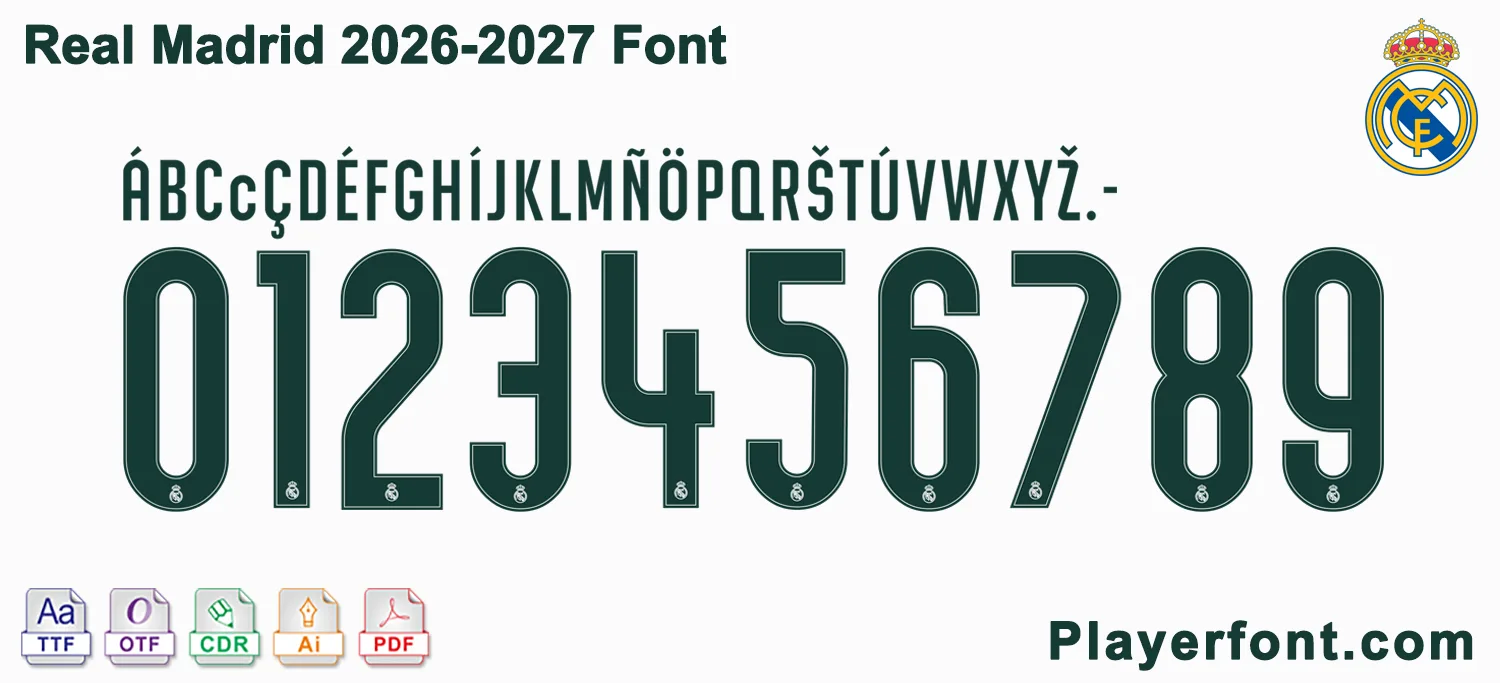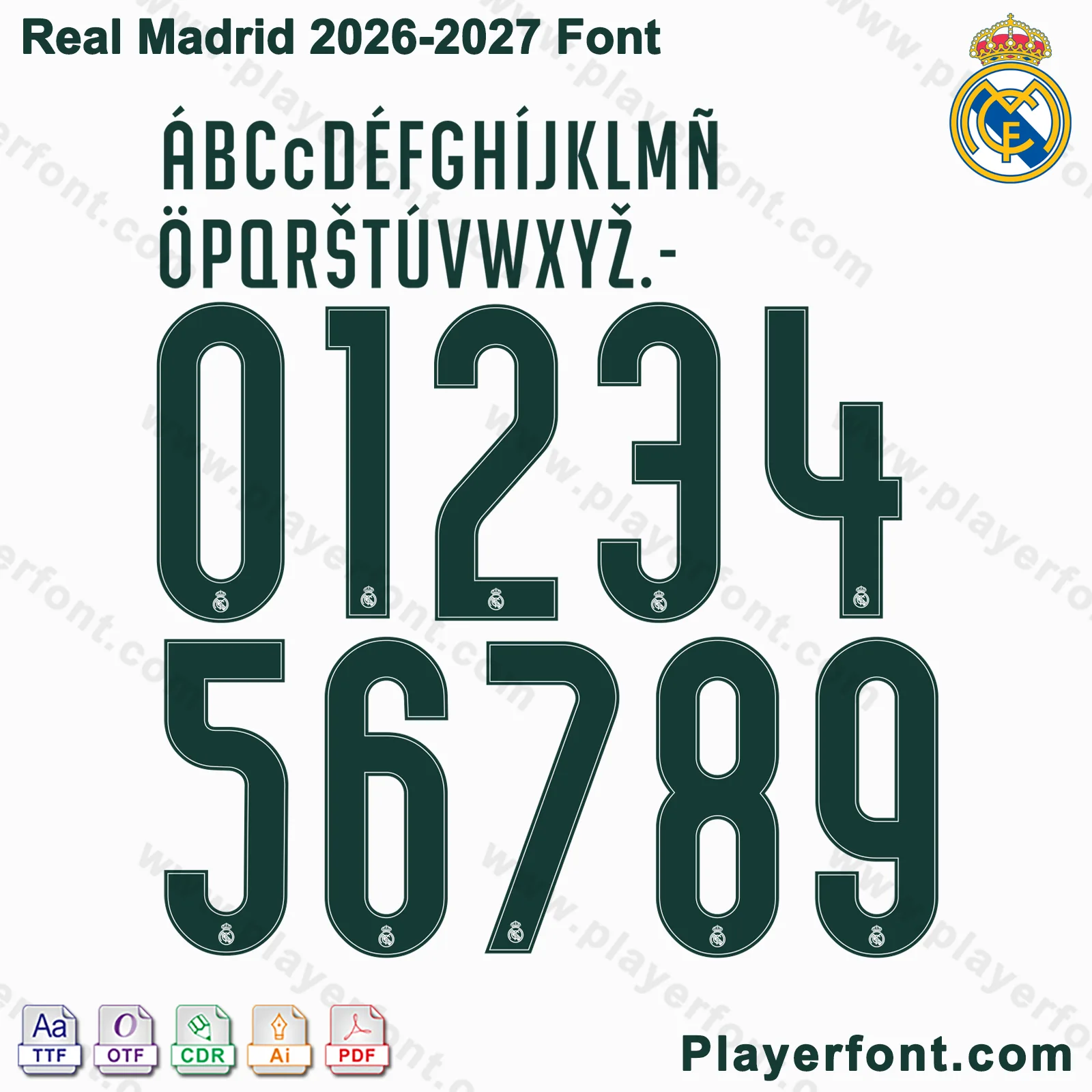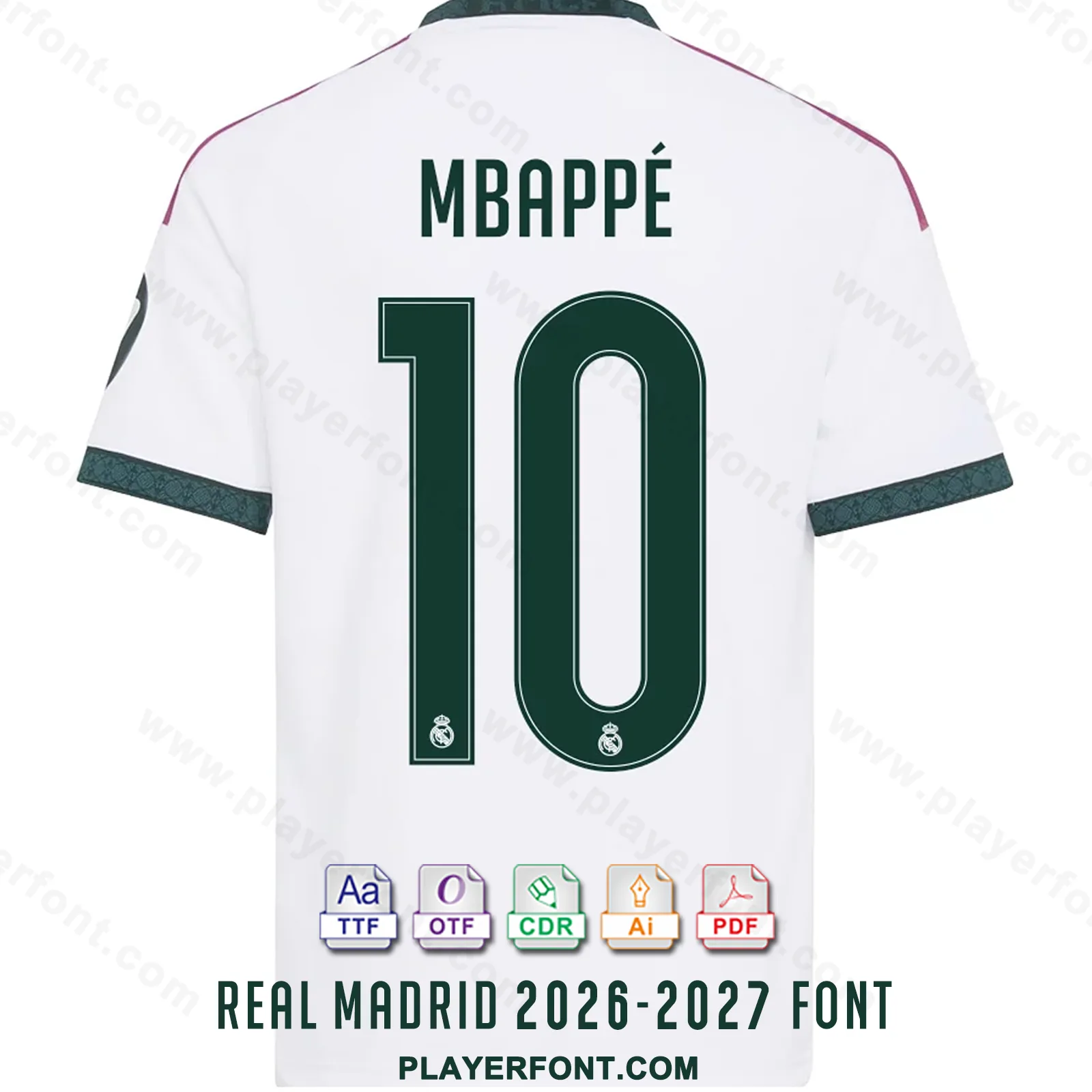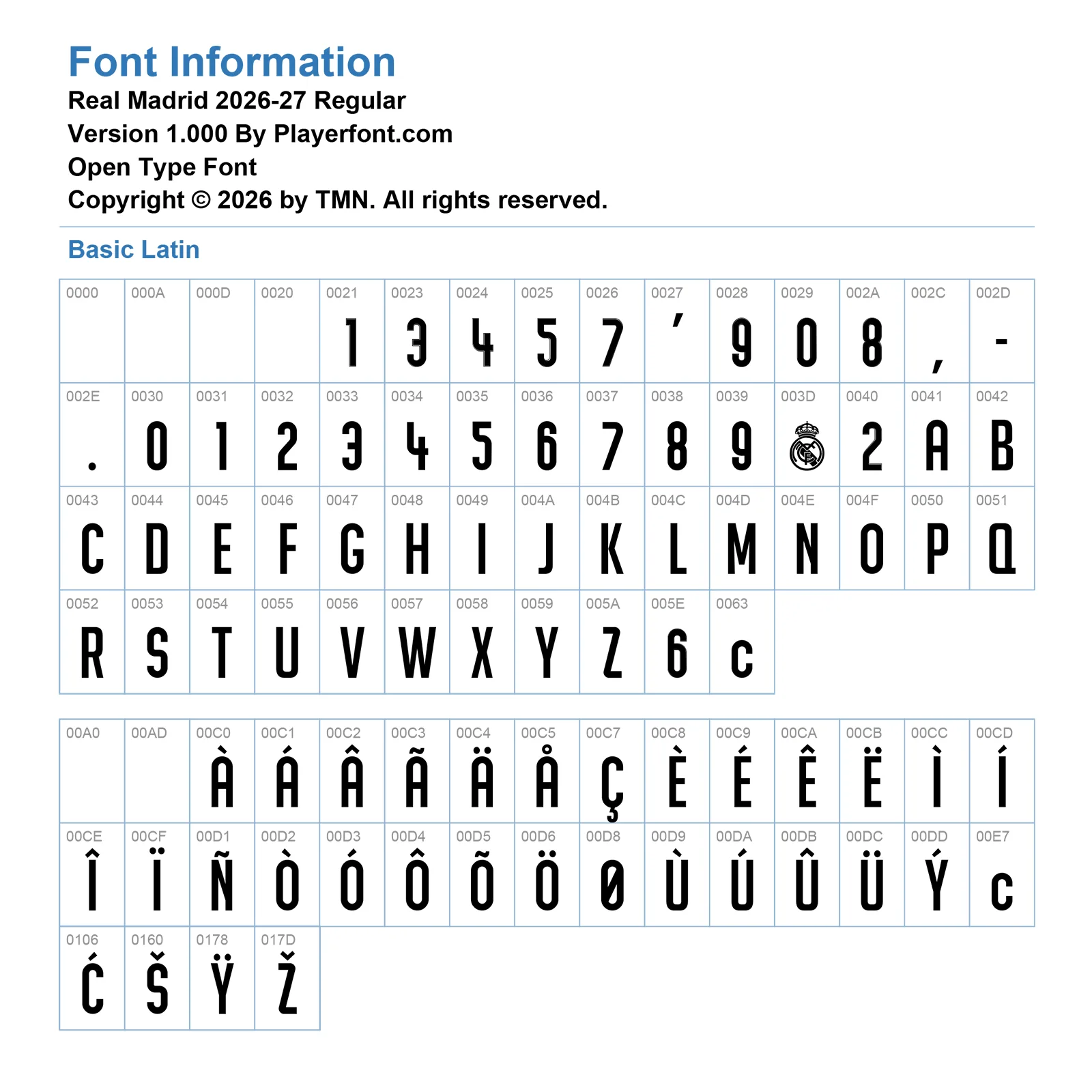
Elevate your sports jersey mockups, football custom graphics, and vector apparel printing projects with the high-quality Real Madrid 2026-2027 Font Download. Masterfully engineered by Playerfont.com, this high-performance typography set replicates the official-style condensed geometric numbers and sharp lettering featured on the pitch for the 2026-27 La Liga and European campaigns.
Key Typography Features & Character List:
This typography pack is fully optimized to support international player rosters and diverse numbering layouts:
- Basic Latin Set: Contains the complete A-Z uppercase character set, condensed geometric numbers (0-9), punctuation marks, commas, and hyphens.
- Advanced International Accent Support: Includes a complete set of accents (such as Á, Â, Ã, Ä, Å, Ç, È, É, Ê, Ë, Ì, Í, Î, Ï, Ñ, Ò, Ó, Ô, Õ, Ö, Ø, Ù, Ú, Û, Ü, Ý, Ć, Š, Ÿ, Ž) ensuring flawless rendering for global stars like MBAPPÉ.
- Authentic Club Details: The intricate Real Madrid club crest is beautifully embedded right into the base of each jersey number for maximum design authenticity.
| Design Feature | Sleek Condensed Block Geometry with White Inline & Embedded Crest |